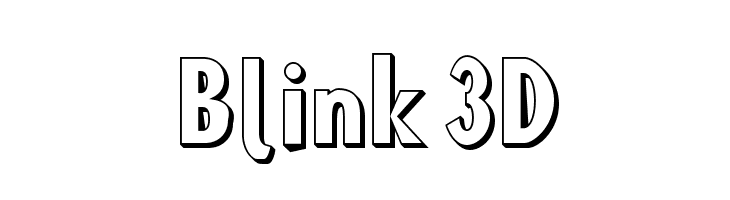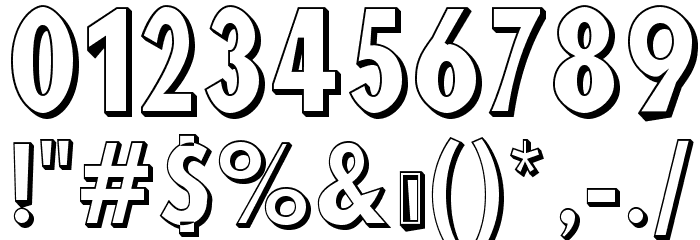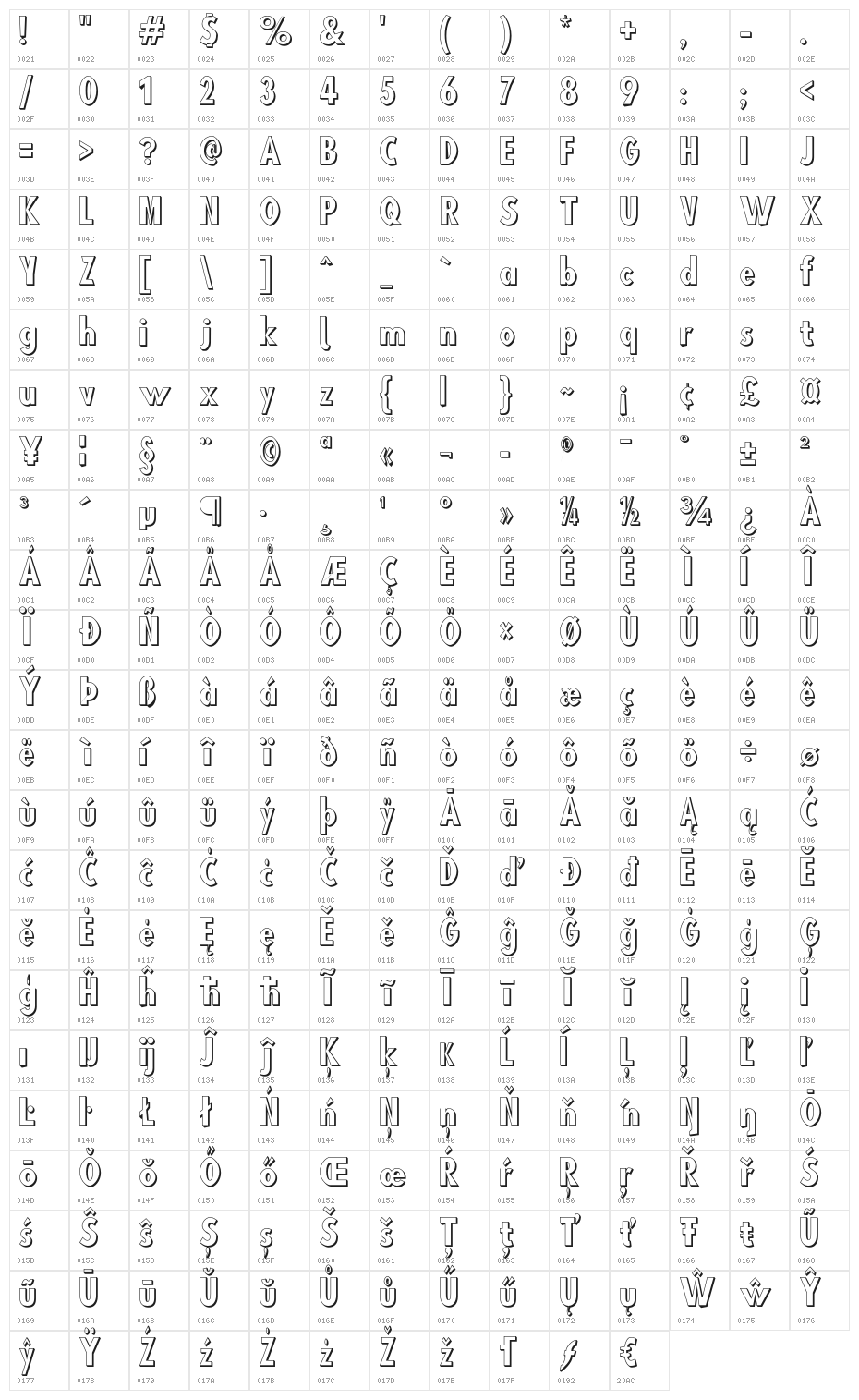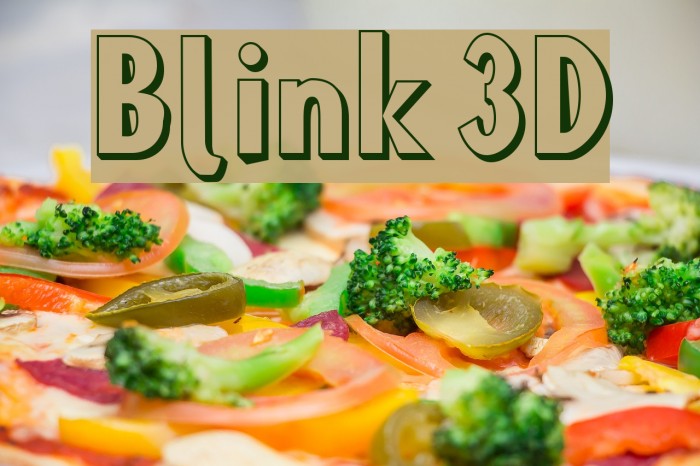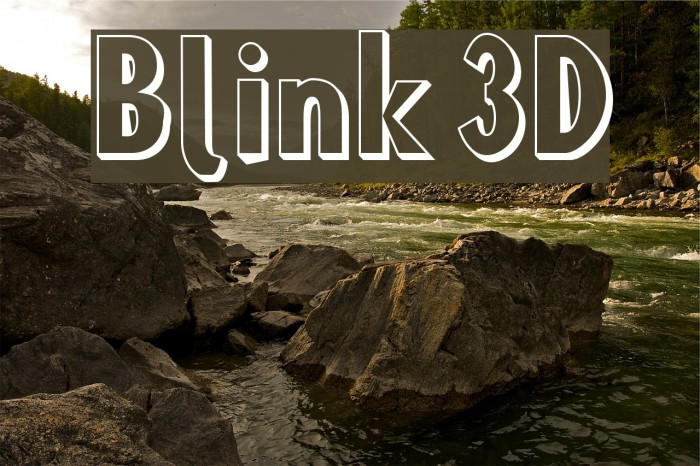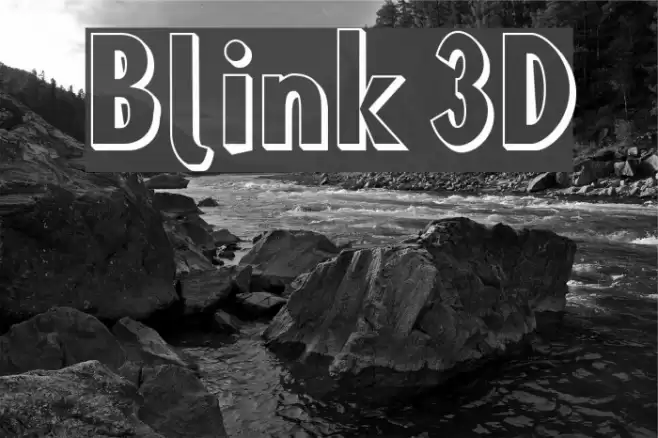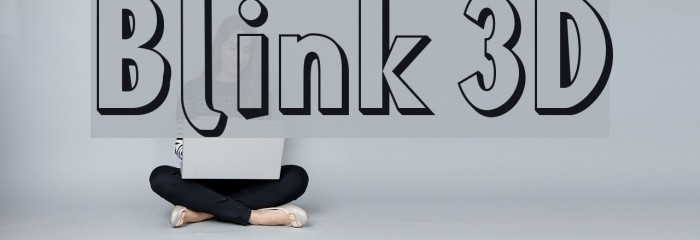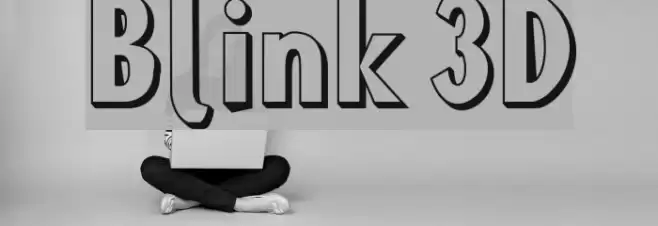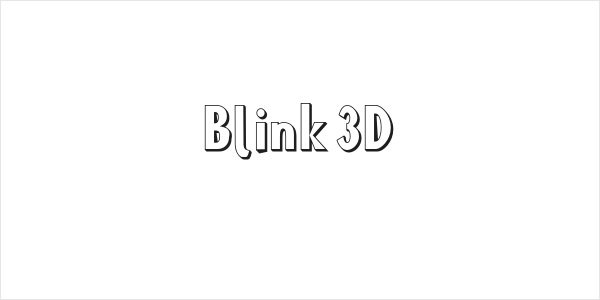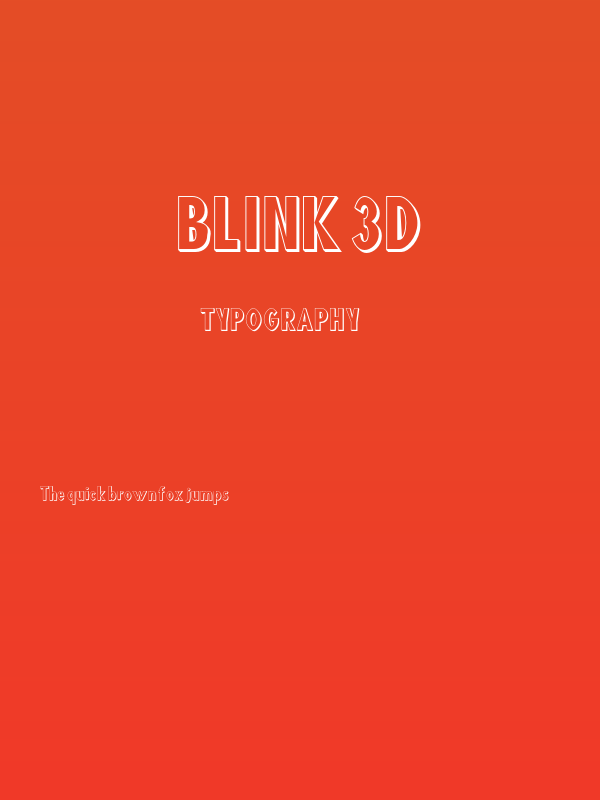
Blink 3D Font
Blink 3D Description
This font features a bold, three-dimensional style that gives each character a striking, shadowed appearance. The uppercase and lowercase letters maintain a consistent geometric form, with clean lines and sharp angles that enhance the 3D effect. The numerals and special characters are designed with the same attention to detail, ensuring uniformity across all glyphs. The font's boldness and depth make it particularly eye-catching, suitable for designs that require a strong visual impact. Its playful yet structured aesthetic makes it versatile for various creative applications.